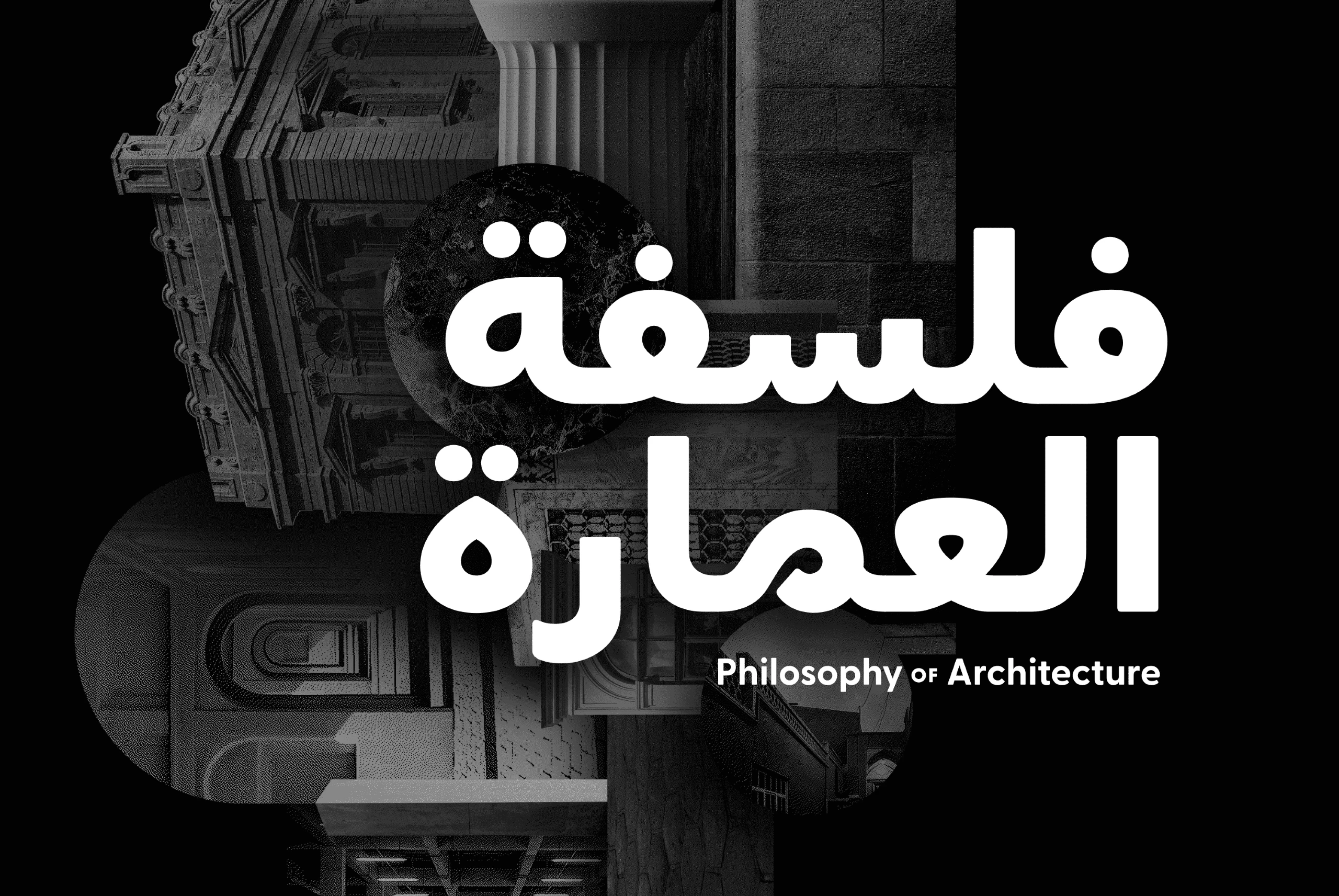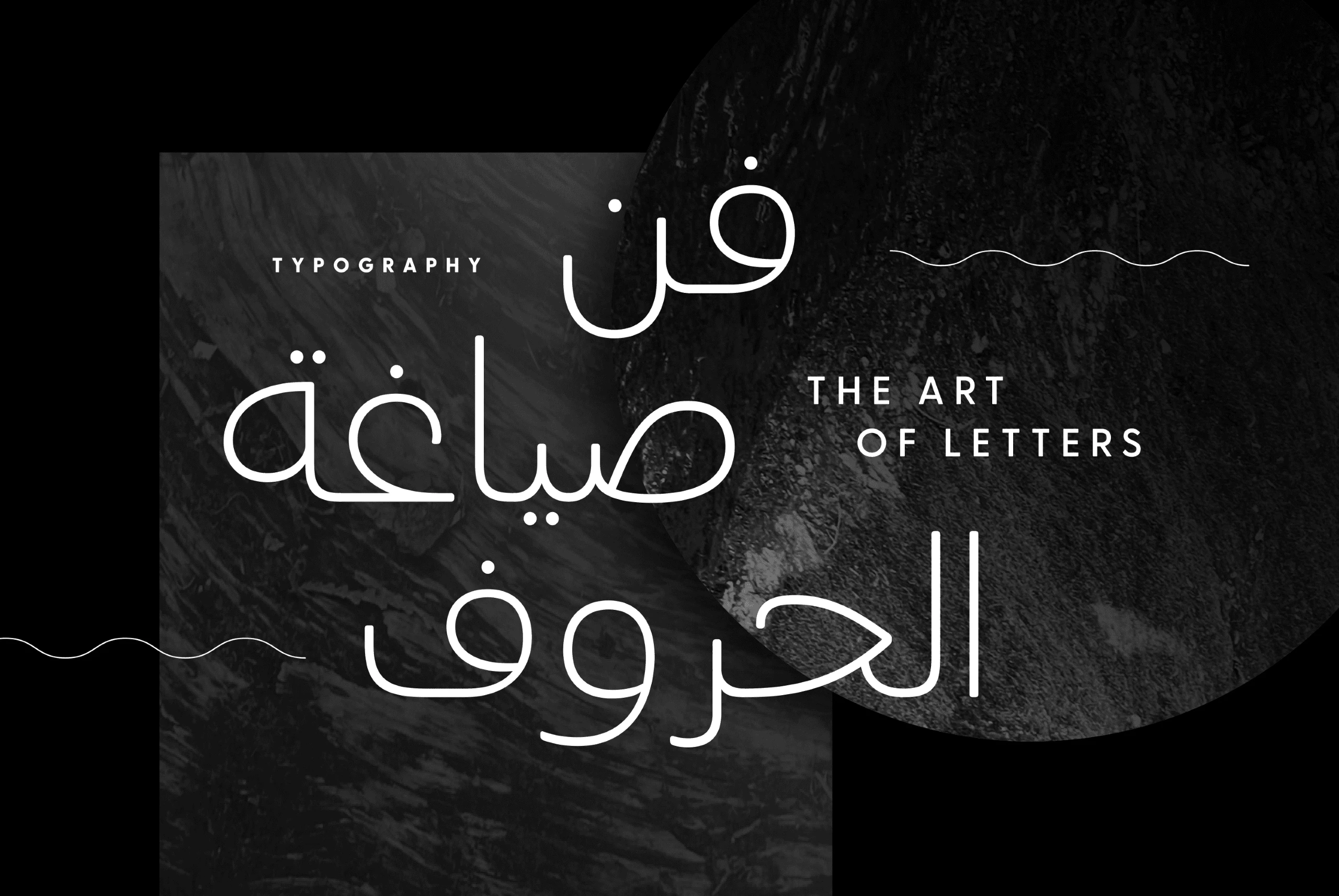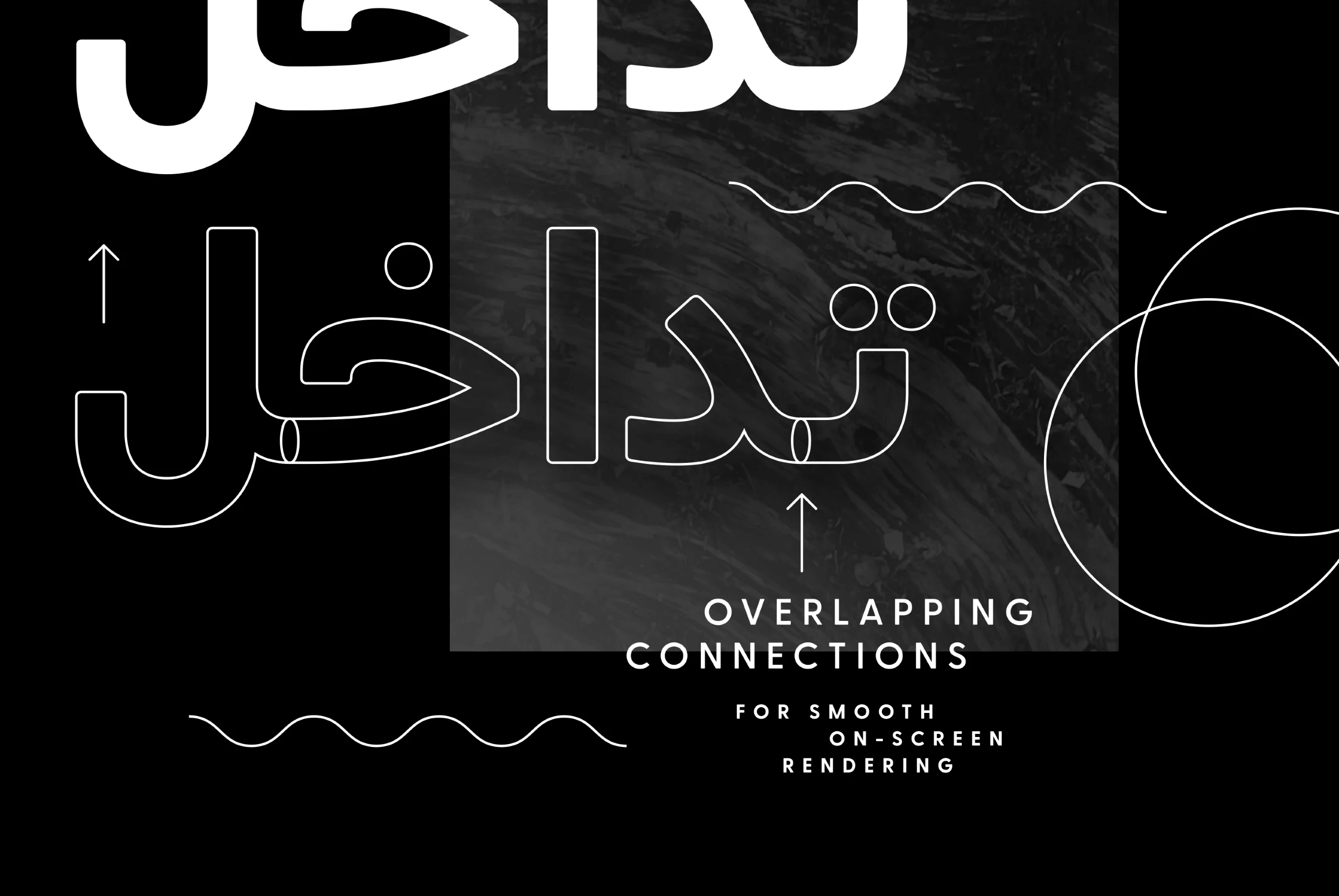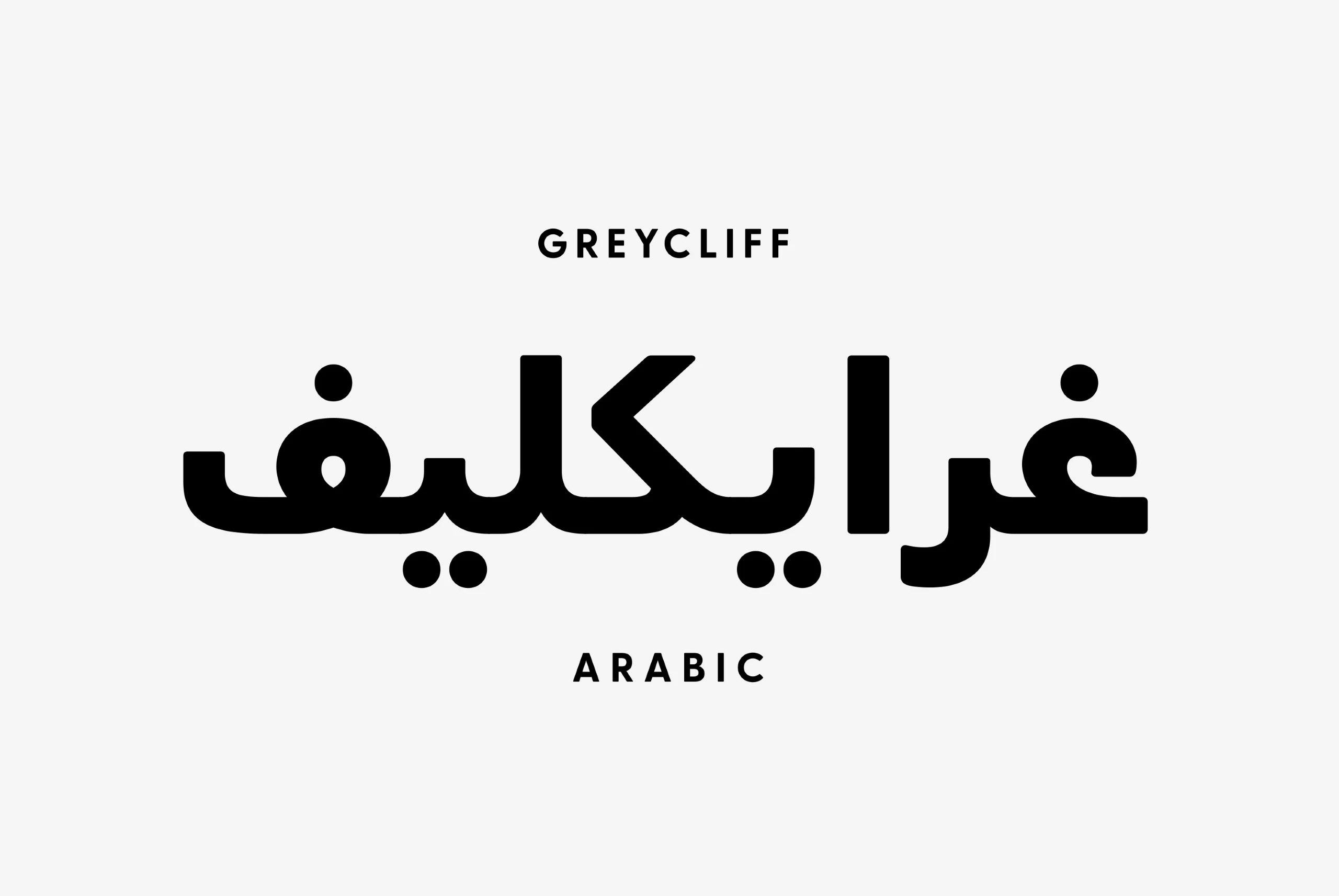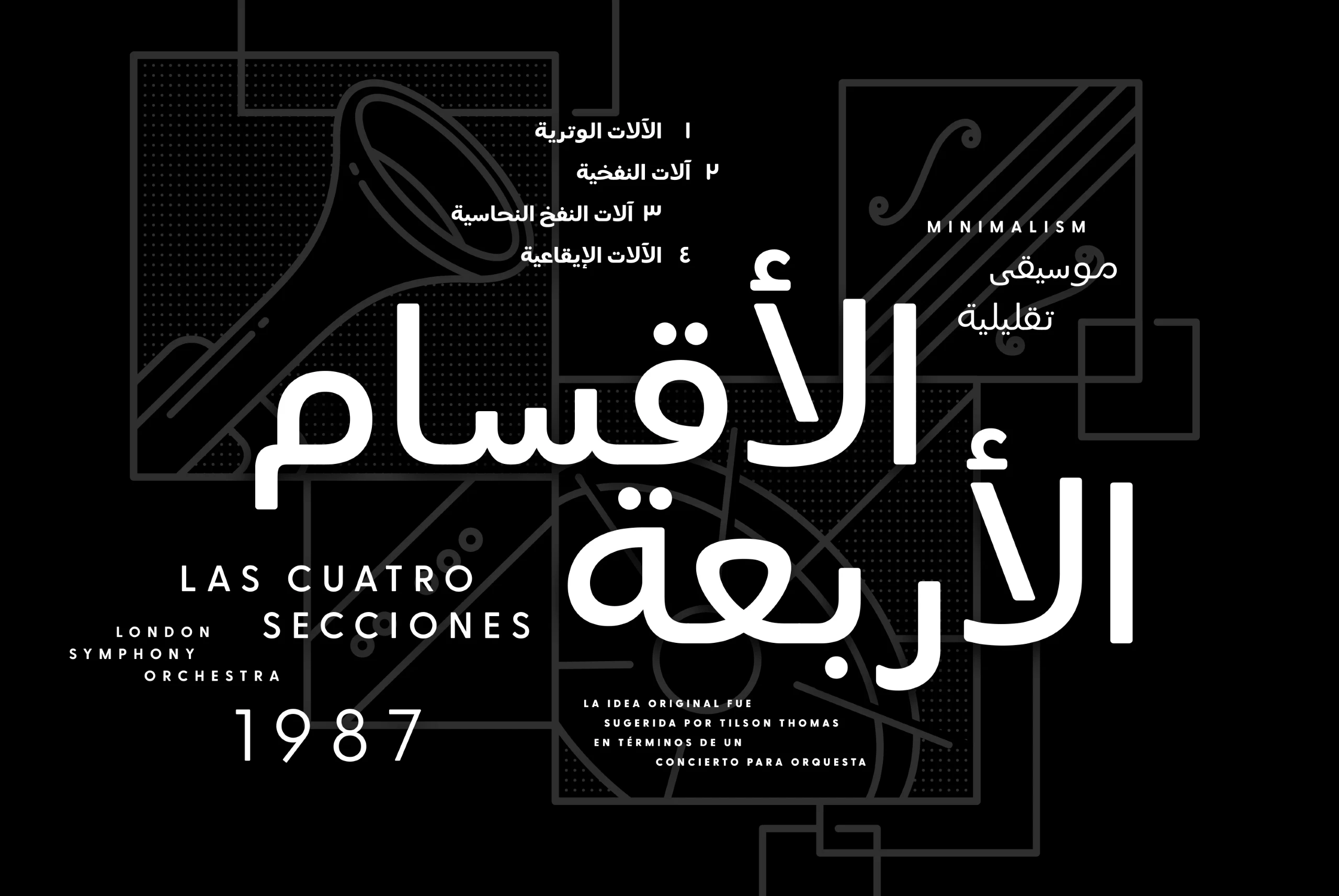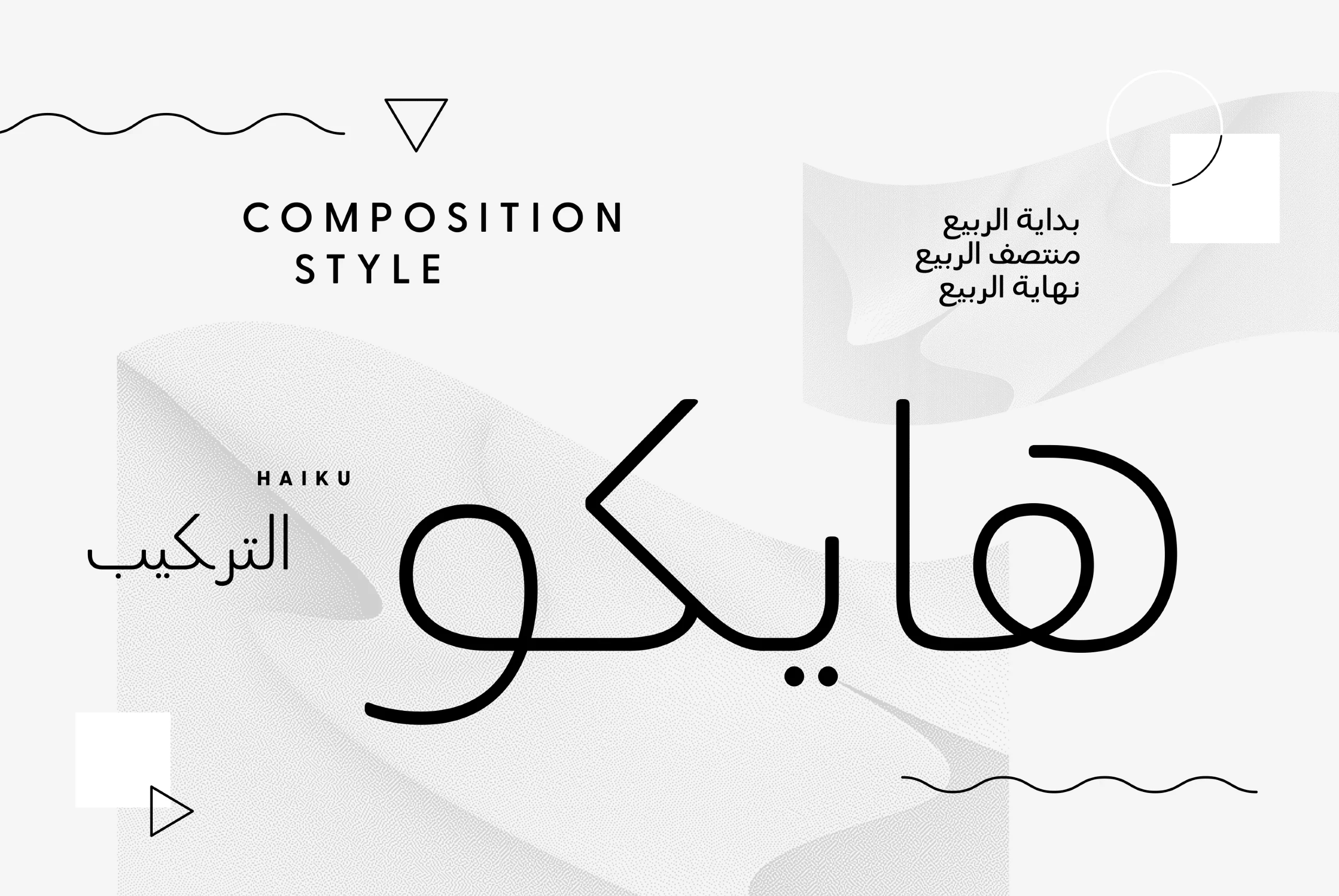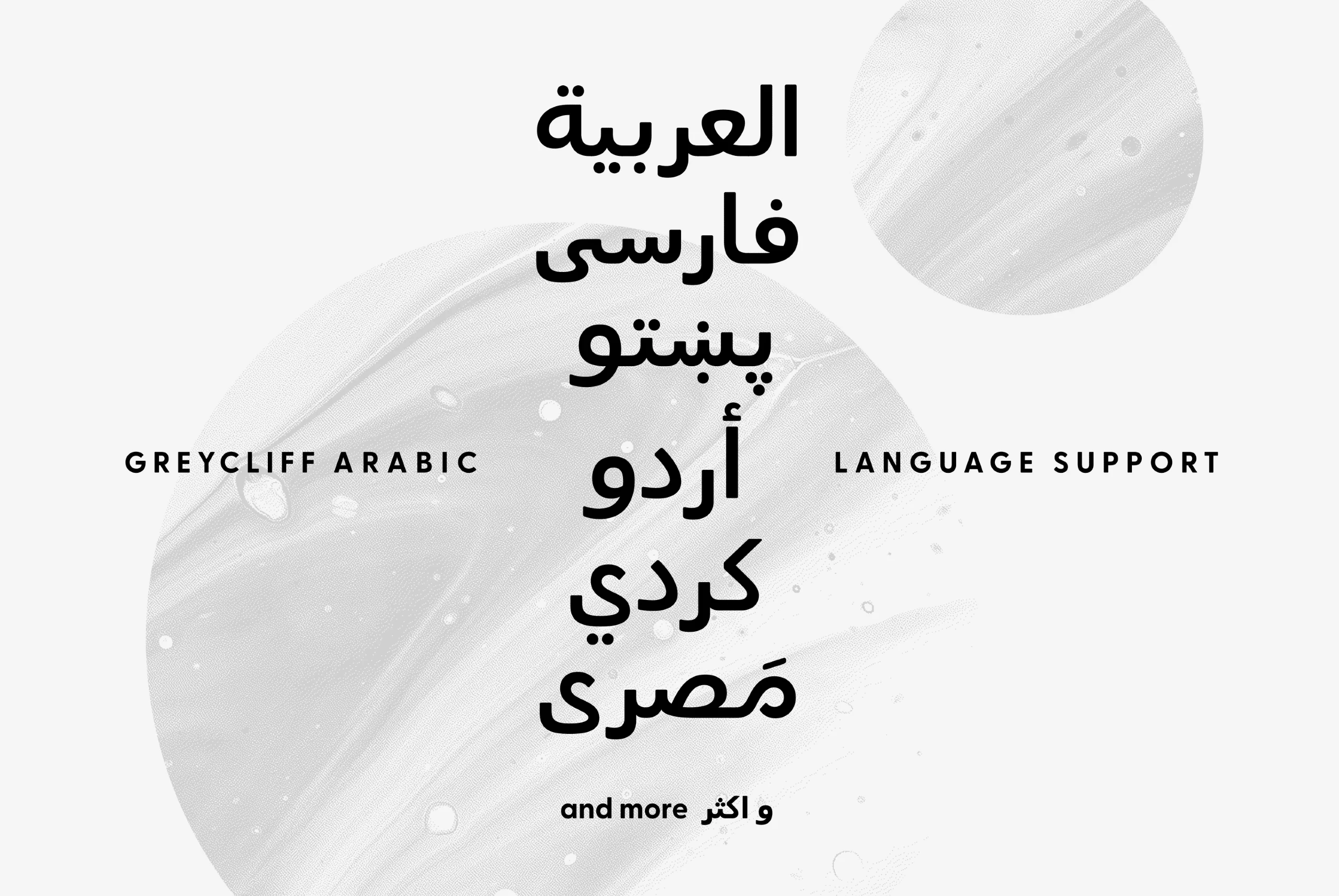
Greycliff Arabic
Greycliff Arabic CF adapts Greycliff’s popular soft, geometric design to the Arabic script. Both Latin and Arabic glyphs are included, allowing for visually cohesive multiple-script applications. Greycliff’s original nine weights are covered, alongside Arabic script diacritics and wide language support, including Modern Standard Arabic, Persian, Pashto, and more. Greycliff Arabic CF works as a complete, self-contained type system, with both Arabic and Latin scripts included and designed to compliment one another.
nine Weights in Latin & Arabic Script
Language support includes Arabic, Catalan, Chinese Pinyin, Croatian, Czech, Danish, Dutch, English, Filipino, Finnish, French, Fula, German, Hungarian, Indonesian, Italian, Latvian, Malay, Maltese, Norwegian, Persian, Polish, Portuguese, Romanian, Slovak, Slovenian, Spanish, Swedish, Turkish, Urdu